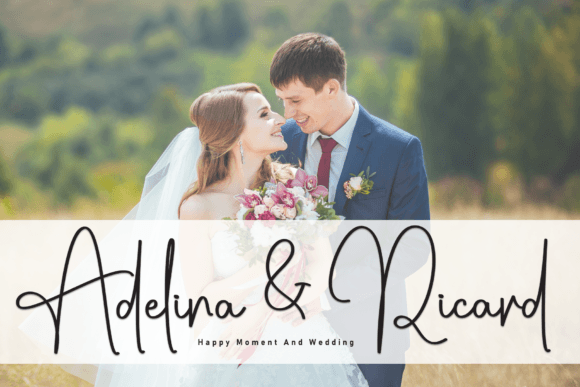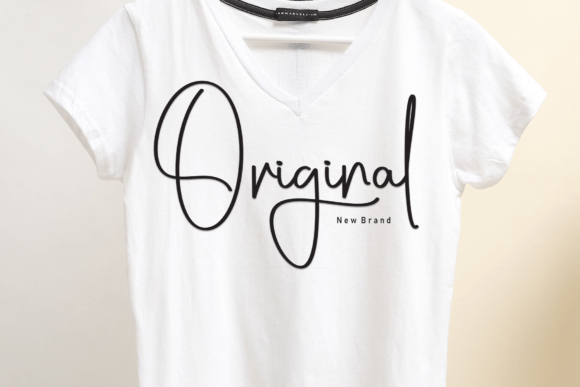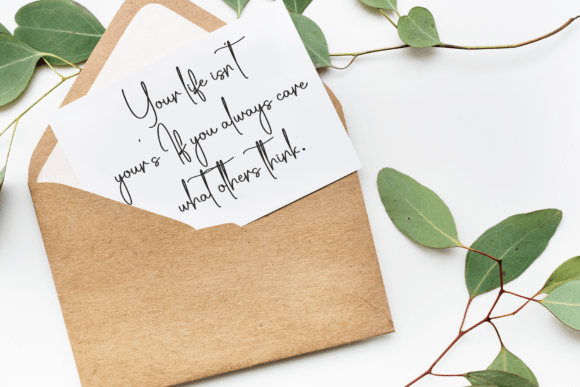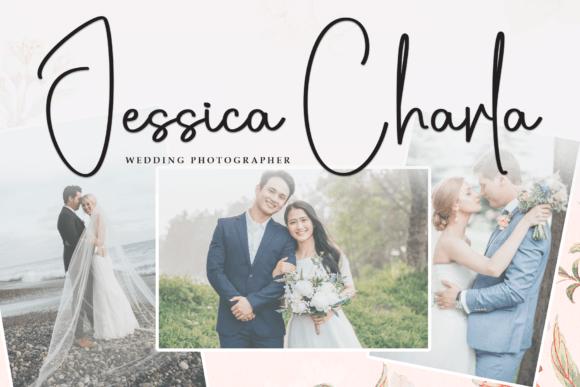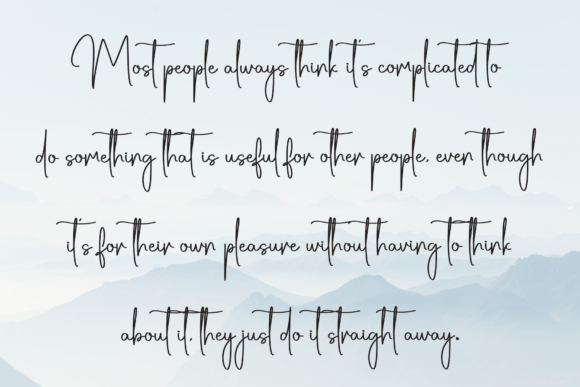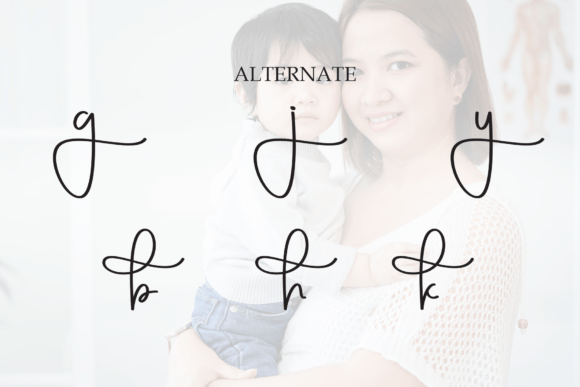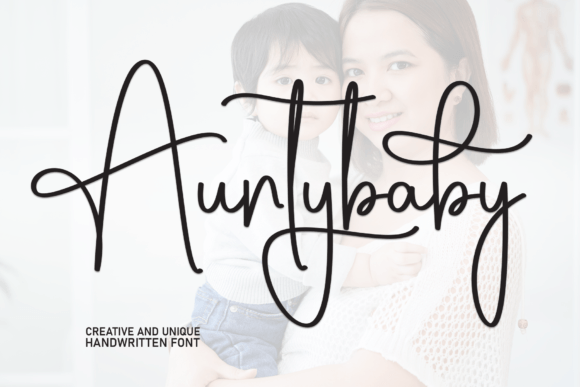
Auntybaby Font: Elevate Your Creativity with this Unique Script Font
Auntybaby is an incredibly unique script font that has been masterfully designed to become a true favorite among designers and crafters. With its elegant and fluid strokes, this font has the potential to bring each of your creative ideas to the highest level. In this article, we’ll dive into the features and benefits of Auntybaby Font, and explore how it can enhance your design projects.
What Makes Auntybaby Font So Special?
Auntybaby Font is a script font that boasts a distinctive and stylish appearance. Its unique design makes it stand out from other fonts, allowing you to add a touch of personality to your designs. The font’s flowing lines and curves create a sense of movement and fluidity, making it perfect for projects that require a high level of creativity and visual appeal.
Key Features of Auntybaby Font
- Unique Script Design: Auntybaby Font features a one-of-a-kind script design that is both elegant and eye-catching.
- Highly Readable: Despite its ornate design, Auntybaby Font is highly readable, making it suitable for use in a variety of projects, from headings to body text.
- Multilingual Support: Auntybaby Font supports multiple languages, allowing you to use it in projects that require non-English text.
Benefits of Using Auntybaby Font
So, why should you choose Auntybaby Font for your design projects? Here are just a few benefits of using this unique script font:
- Adds Personality to Your Designs: Auntybaby Font’s distinctive design allows you to add a touch of personality to your projects, setting them apart from more generic designs.
- Enhances Visual Appeal: The font’s flowing lines and curves create a sense of movement and visual appeal, making your designs more engaging and attention-grabbing.
- Versatile: Auntybaby Font is suitable for use in a wide range of projects, from branding and advertising to crafting and scrapbooking.
- Time-Saving: With Auntybaby Font, you can create professional-looking designs quickly and easily, saving you time and effort.
How to Use Auntybaby Font in Your Design Projects
- Pair it with Other Fonts: Auntybaby Font pairs well with other fonts, allowing you to create visually appealing combinations that add depth and interest to your designs.
- Experiment with Colors: Auntybaby Font looks great in a variety of colors, so don’t be afraid to experiment and find the perfect hue for your project.
- Use it for Headings and Titles: Auntybaby Font is perfect for use in headings and titles, where its unique design can really shine.
In conclusion, Auntybaby Font is a unique and versatile script font that has the potential to elevate your design projects to new heights. With its elegant design, high readability, and multilingual support, this font is perfect for designers and crafters who want to add a touch of personality to their work. Whether you’re creating branding materials, crafting projects, or scrapbooking pages, Auntybaby Font is sure to become a favorite in your font collection.